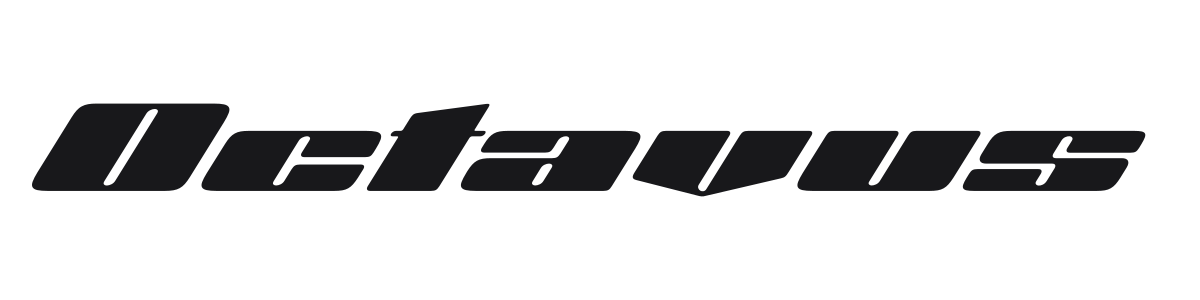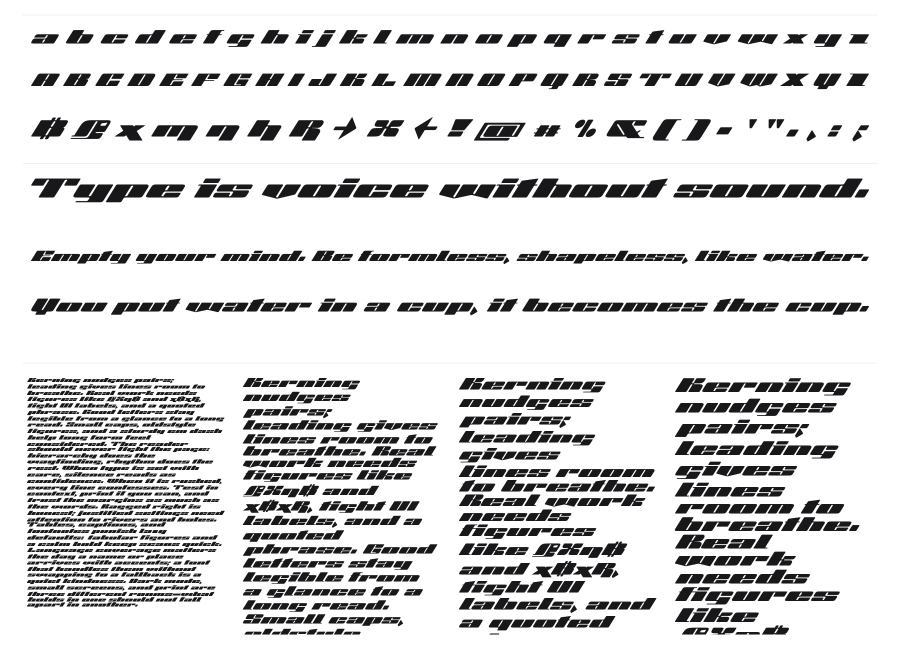
Octavus
Octavus is a wide, black, and aggressively slanted sans-serif built around a 32-degree oblique angle and sharp stroke contrast. Rounded terminals soften the otherwise hard-edged construction, creating a tension between precision and momentum. It belongs on racing liveries, game titles, and any headline that needs to feel like it's already moving.